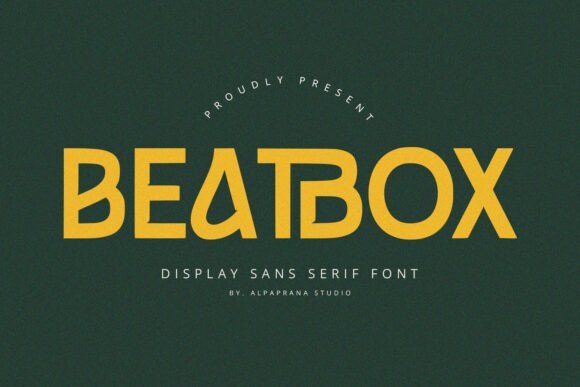
The Rhythm of Typography: Introducing Beatbox Font
Have you ever found yourself humming a catchy tune while staring at a beautifully designed magazine spread? That’s the magic of typography at work. For designers, the right font can elevate a project from good to great, and that’s exactly what the Beatbox Font is designed to do.
Beatbox Font is a stunning display sans serif font that combines elegance and modernity, making it perfect for a wide range of design projects, from magazines and packaging to posters, shopping bags, and book covers. Its versatility and sophistication will undoubtedly make it a valuable addition to any designer’s toolkit.
With the Beatbox Font, designers can add a touch of sophistication and creativity to their work, making it stand out in a crowded design landscape. Whether you’re working on a photography project, a special event, or a simple t-shirt design, this font is sure to bring your vision to life.
Key Features of Beatbox Font
- Font Family: Beatbox Font is a unique sans-serif font family designed for music and entertainment.
- Unique Characteristics: Features a distinctive sound wave-inspired design, making it perfect for music-related projects, such as album covers, posters, and merchandise.
- Character Set: Includes a wide range of characters, including uppercase and lowercase letters, numbers, punctuation marks, and special characters.
- Style Variations: Available in 6 different styles, including Regular, Bold, Italic, Bold Italic, Outline, and Shadow, to suit various design needs.
Beatbox Font Review
I recently had the chance to work with the Beatbox Font, and I must say it’s a unique and intriguing typeface. ✨ The font’s energetic and playful vibe is perfect for projects that require a fun and youthful feel. The bold and striking design elements really make it stand out.
One of the things I appreciate about Beatbox Font is its versatility. ✨ It comes in a range of weights and styles, making it suitable for a variety of applications, from logos and branding to digital interfaces and print materials. The font also supports a wide range of languages, which is a big plus for global projects.
While Beatbox Font is a great choice for many projects, there are some limitations to consider. ⚠️ One of the main drawbacks is the font’s lack of subtlety. It’s a bold and eye-catching typeface, but it may not be the best choice for projects that require a more understated or elegant design.
Additionally, some users may find the font’s irregularities and inconsistencies distracting. ⚠️ While the font’s unique design elements are part of its charm, they can also make it difficult to read in certain contexts.
Overall, I think Beatbox Font is a great choice for projects that require a fun and energetic design. While it may not be the best choice for every project, it’s definitely worth considering for projects that need a bold and attention-grabbing typeface.
- ✨ Unique and playful design
- ✨ Versatile and suitable for a range of applications
- ✨ Supports a wide range of languages
- ⚠️ May not be suitable for projects that require a more understated design
- ⚠️ Irregularities and inconsistencies may be distracting in certain contexts
Beatbox Font: A Practical Application Guide
Tips for Getting the Most Out of Beatbox Font
Here are some tips for getting the most out of the Beatbox font:
- Pair the Beatbox font with other bold or playful fonts to add contrast and visual interest.
- Use the Beatbox font to create eye-catching headlines or titles.
The Beatbox font is commonly used in:
- Music and entertainment branding.